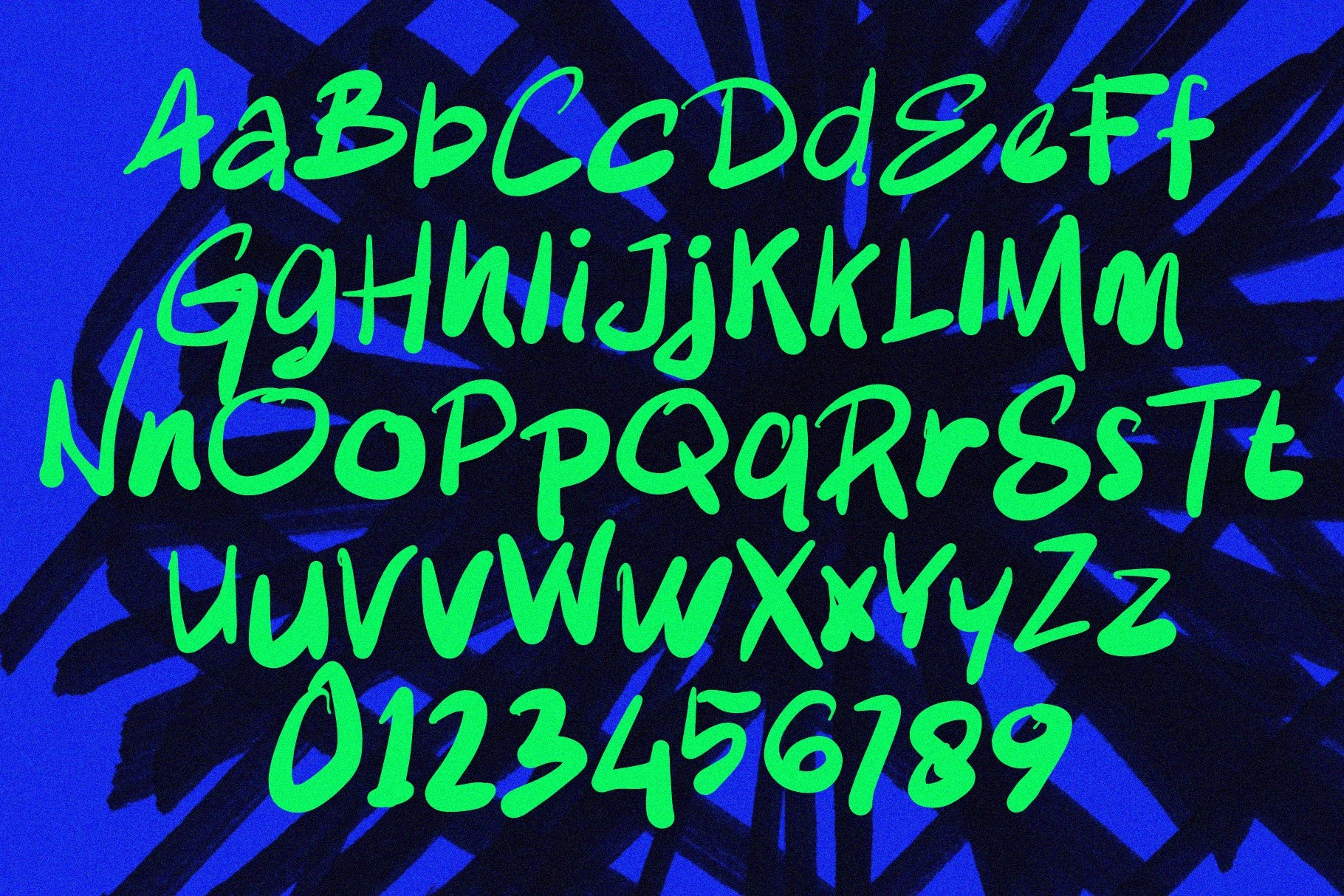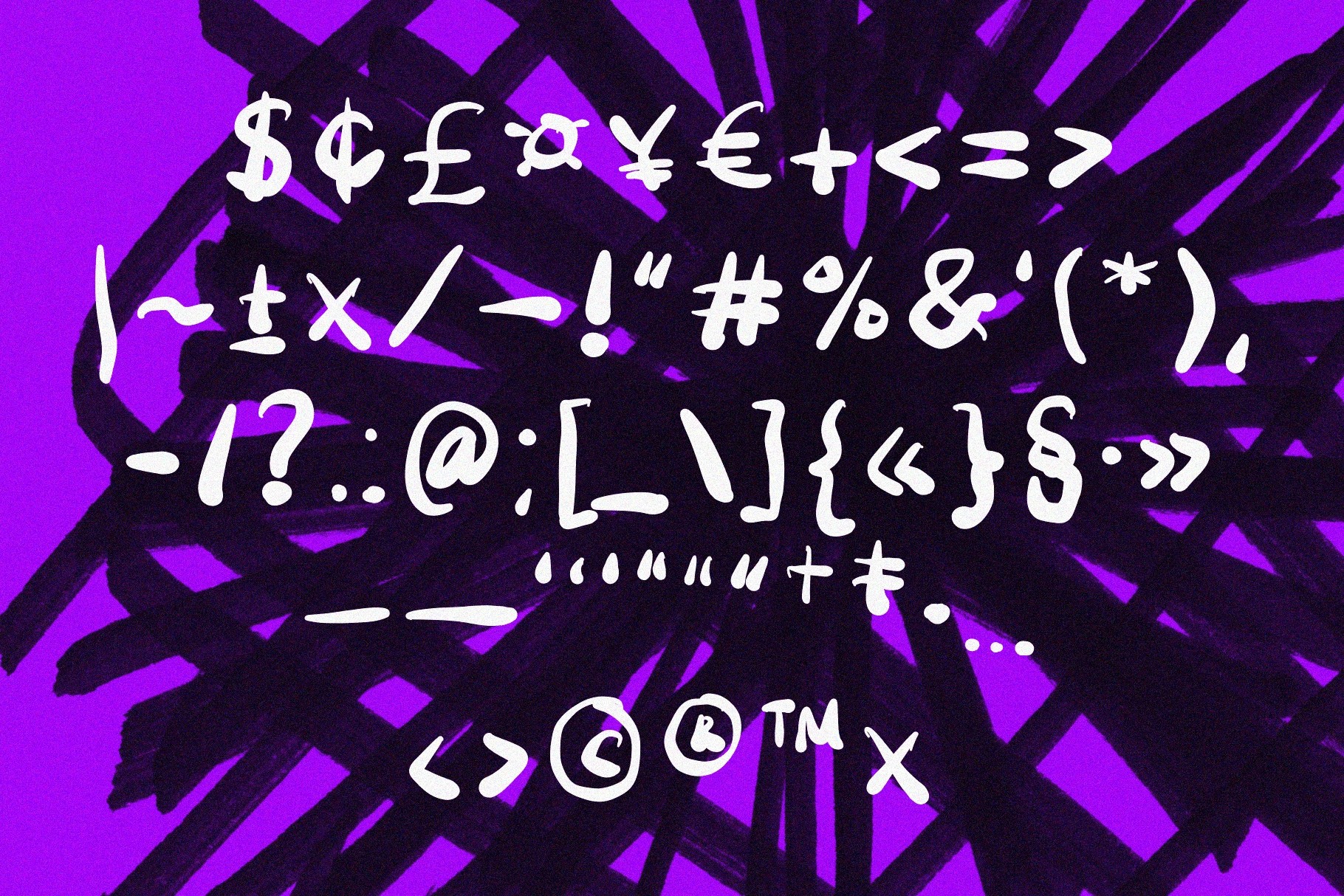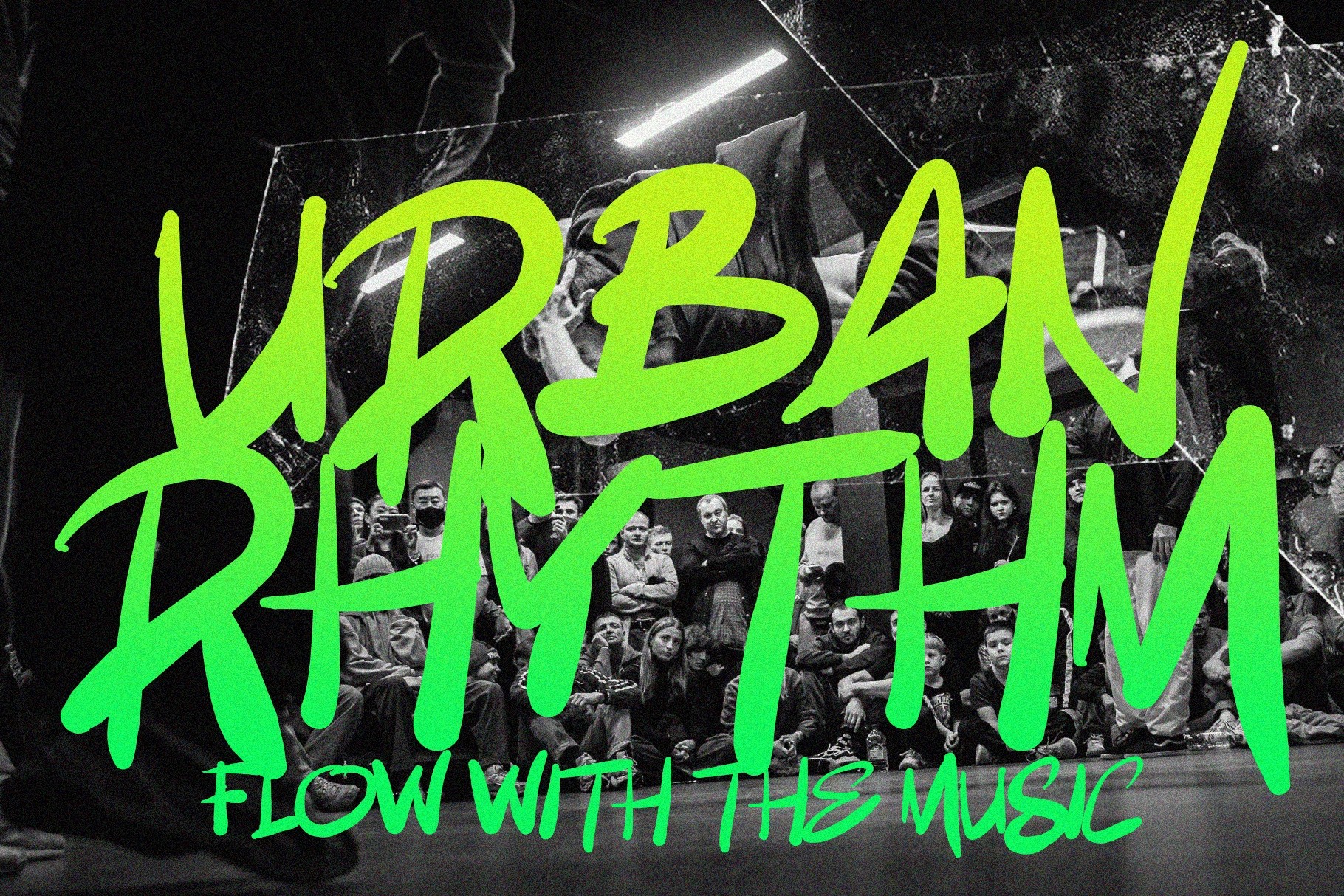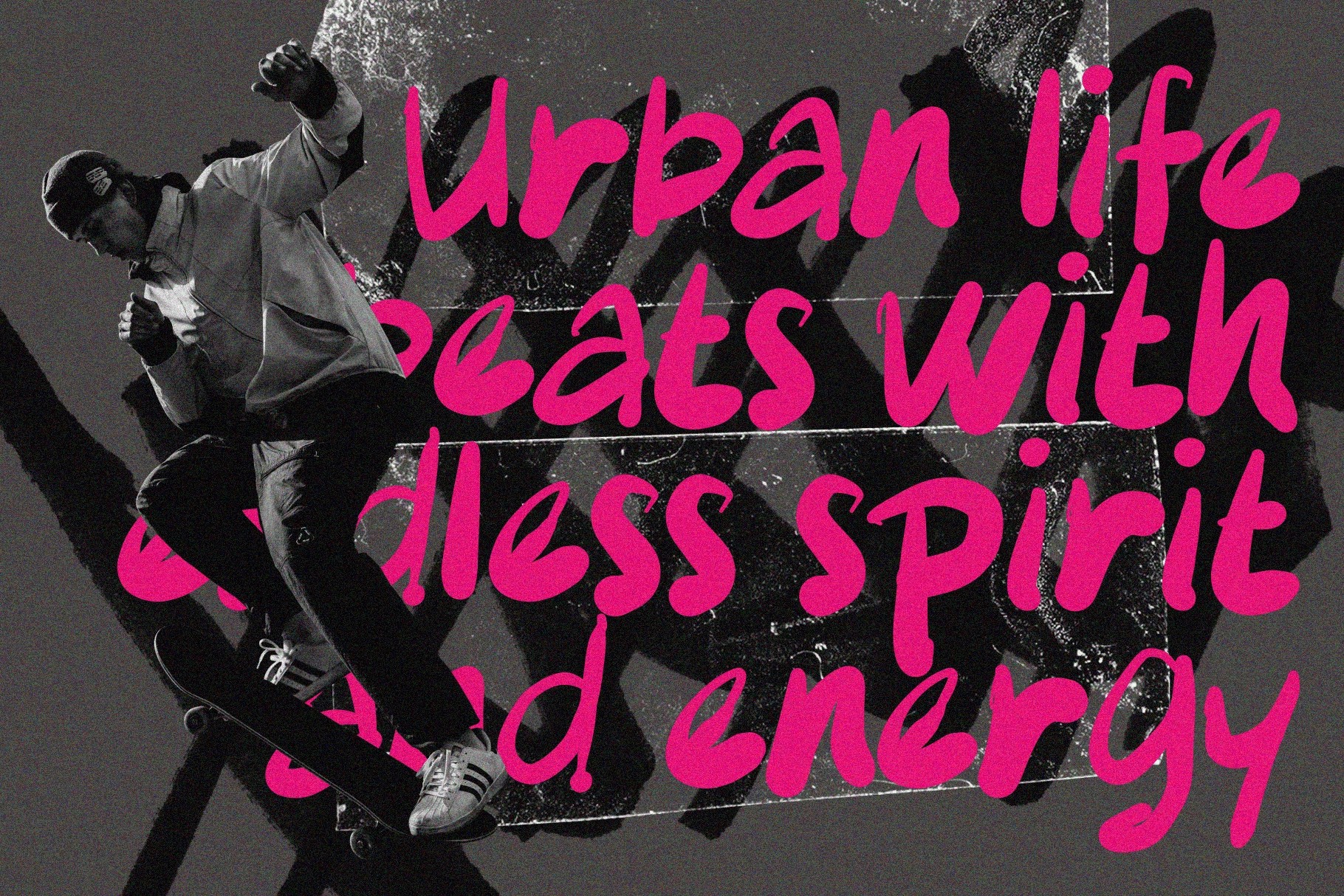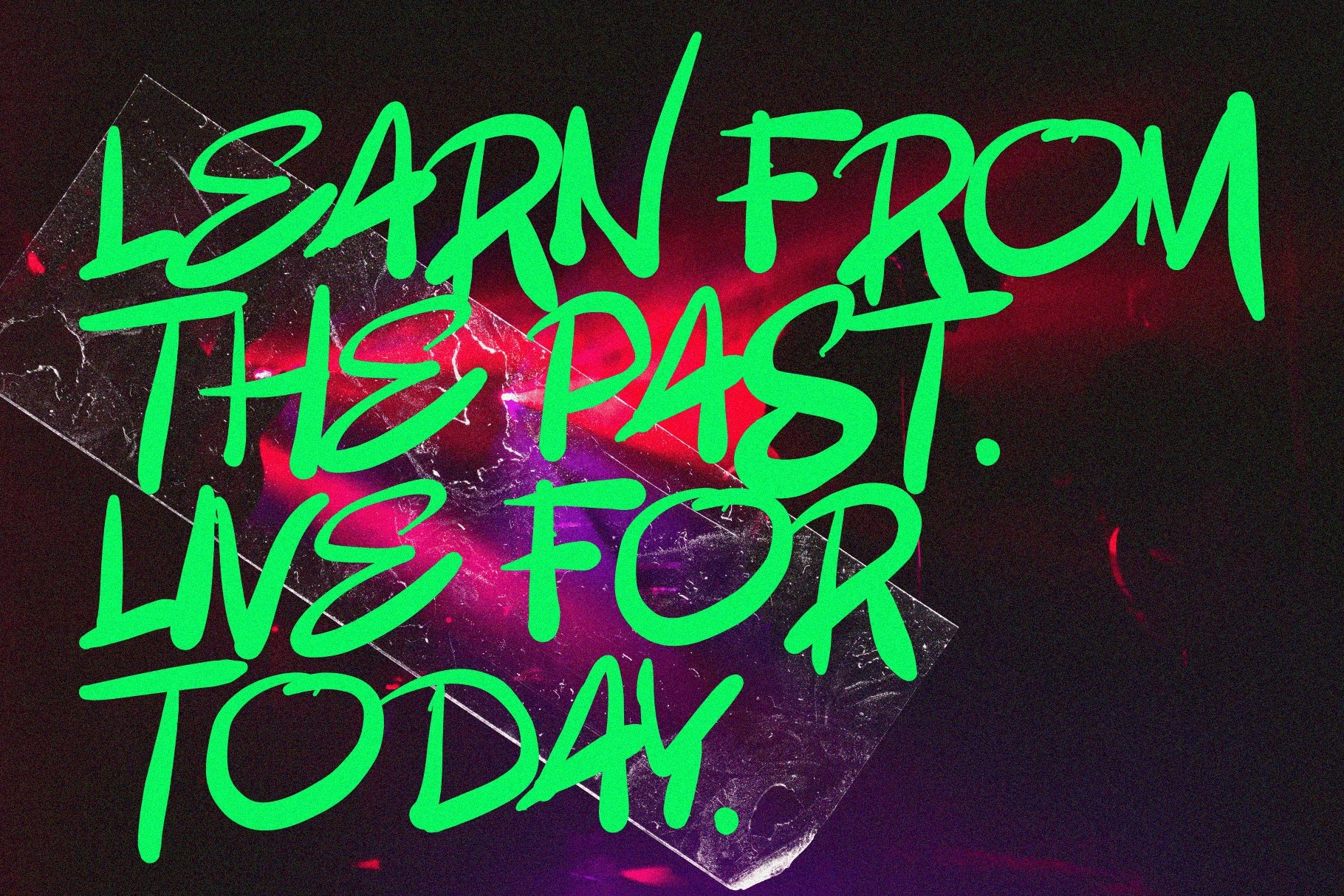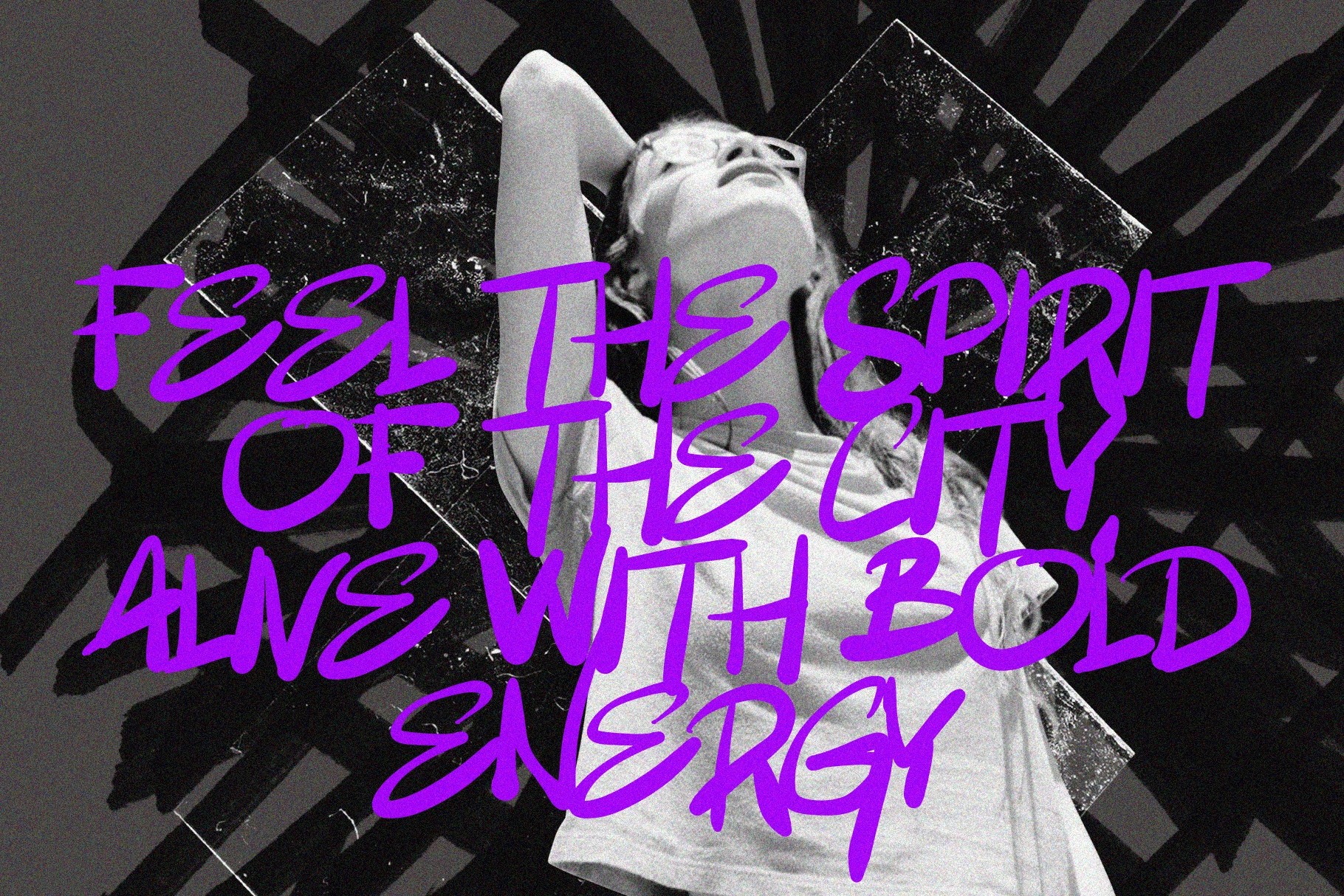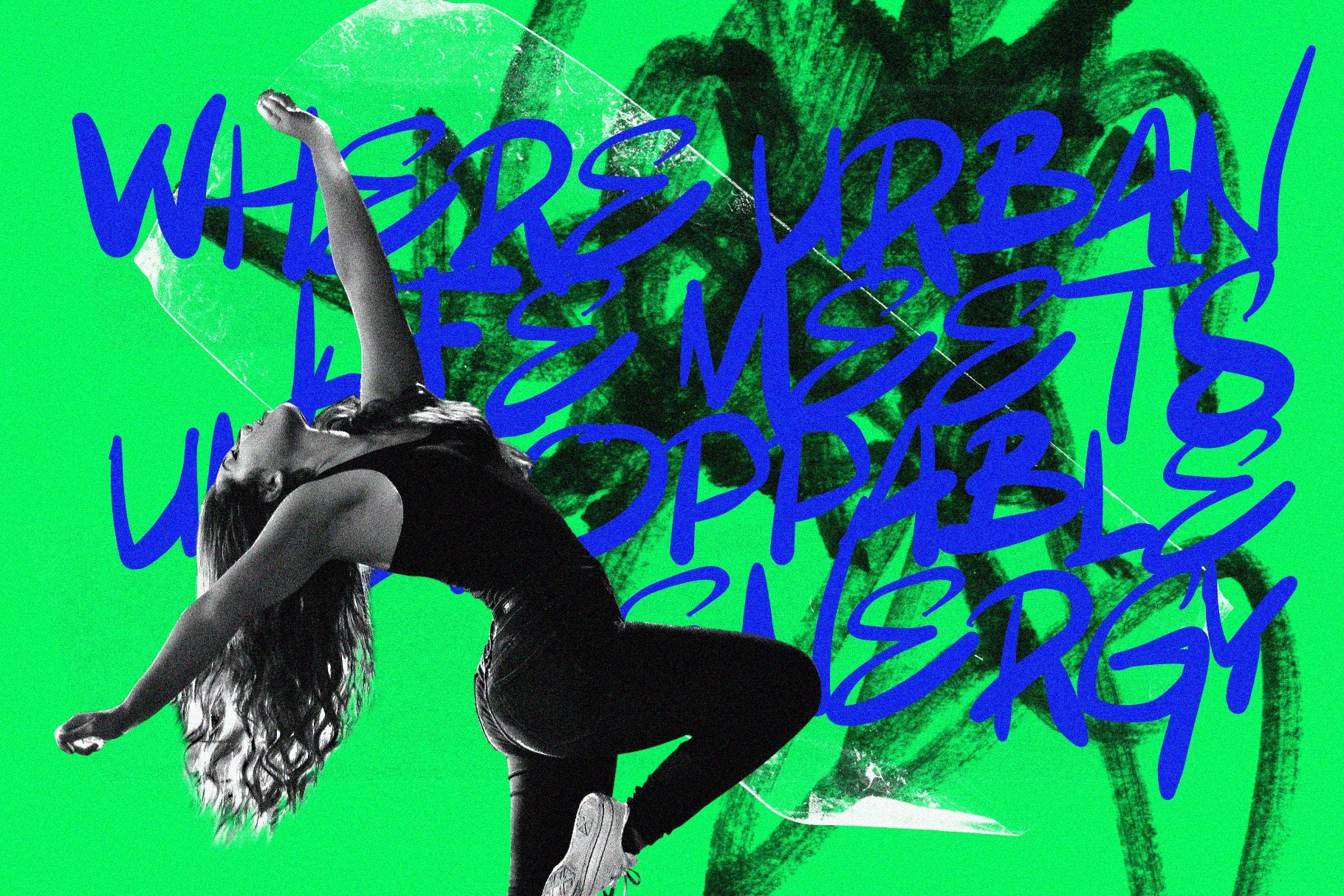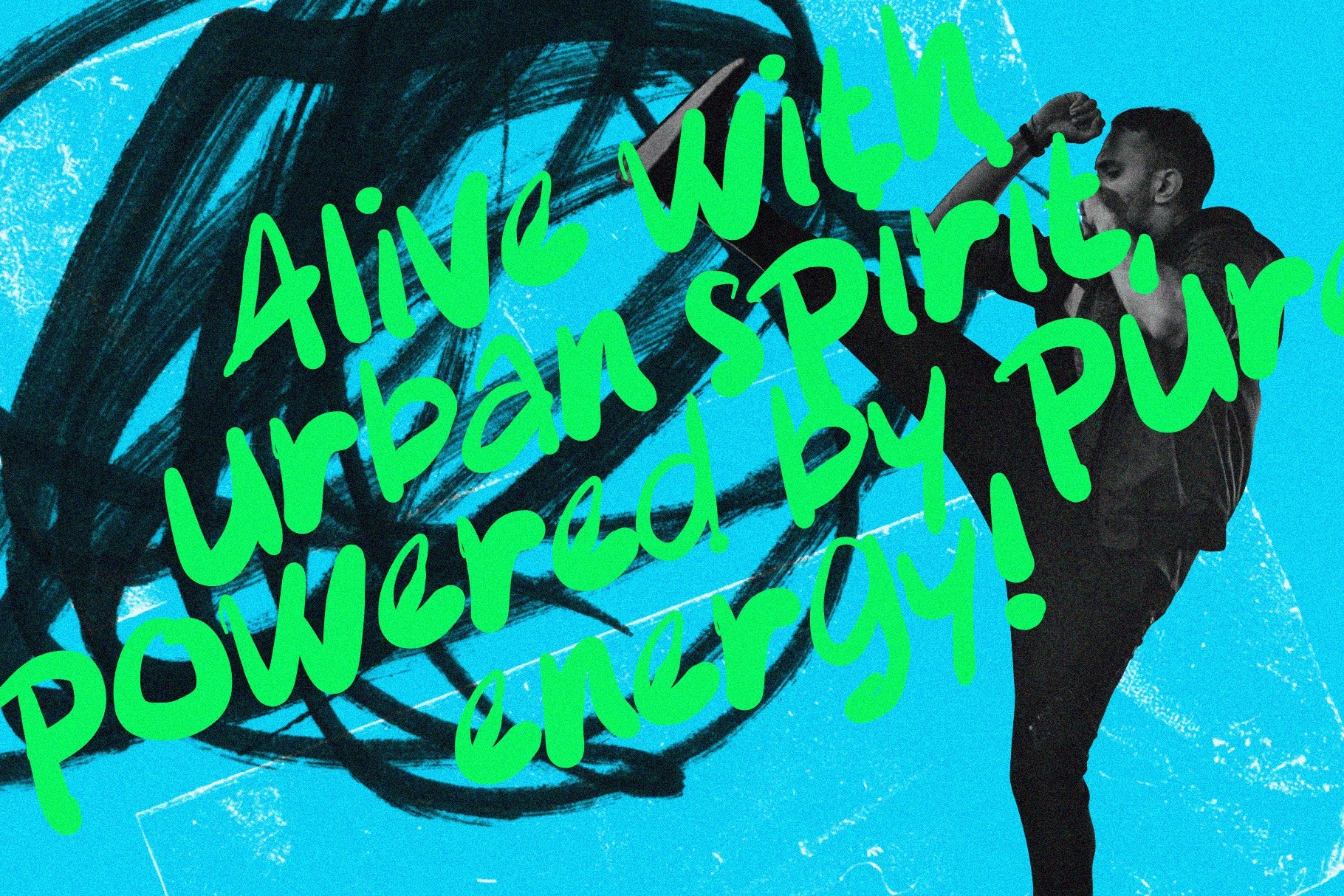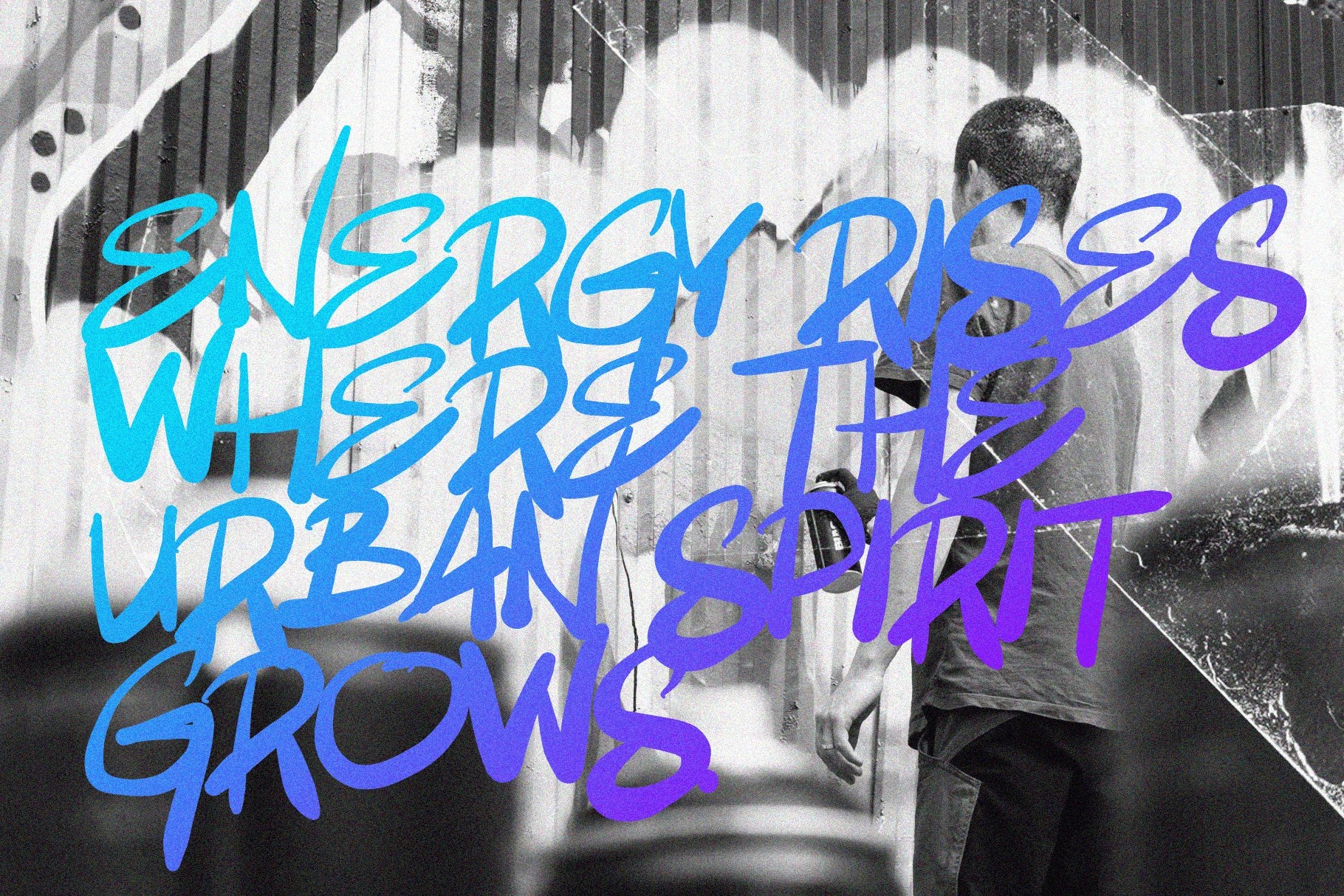
MENIK — Handwritten Brush Font
Menik
This brush font h as the speed, pressure, and raw shape of marker lettering pulled straight from the wall, stage, and back-alley poster run. Thick strokes, sharp swings, uneven edges, and high-contrast rhythm give every word a loud urban character without making it look overproduced.
It is a strong pick for streetwear branding, music posters, festival graphics, album covers, sports visuals, skate shop identities, YouTube thumbnails, nightlife flyers, editorial headlines, merch prints, social media campaigns, and punchy ad layouts. The handwritten structure keeps the letters loose and human, while the heavy brush movement gives headlines enough force to carry the whole composition.